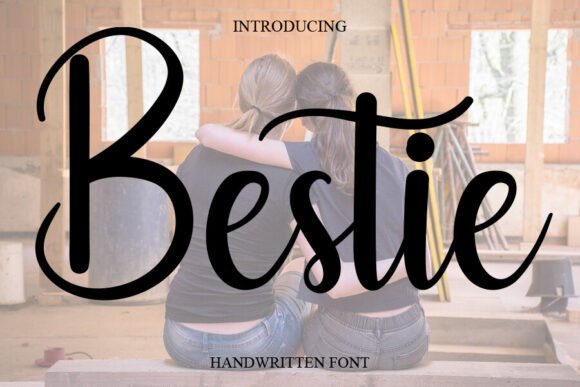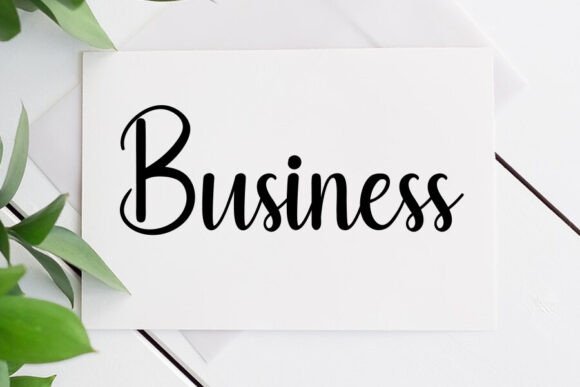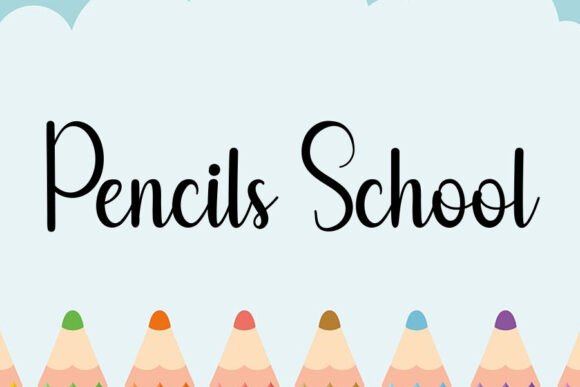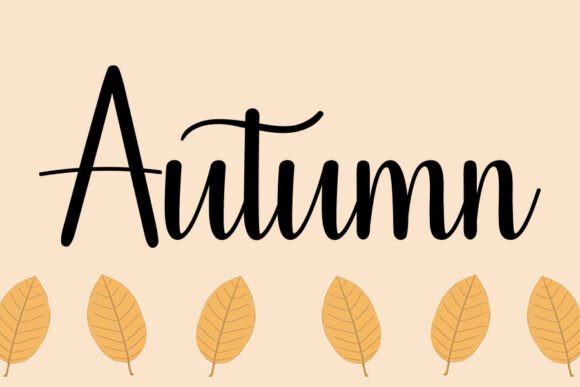
Bestie Font: Sweet Handwritten Script for Wedding & Logo Design
About the Bestie Font
The Bestie Font offers a perfect balance of form and function for your design needs. Bestie is a sweet and cursive handwritten font. This gentle font will look gorgeous on a variety of design ideas. It will add a joyful and romantic touch to each of your projects! Perfectly fit for branding, logo, wedding things, greeting cards, fashion, lookbook, marketing promotion, and any time you want your design to look fancy and elegant but still casual.
Bestie Font Usage Examples
Bestie Font Example